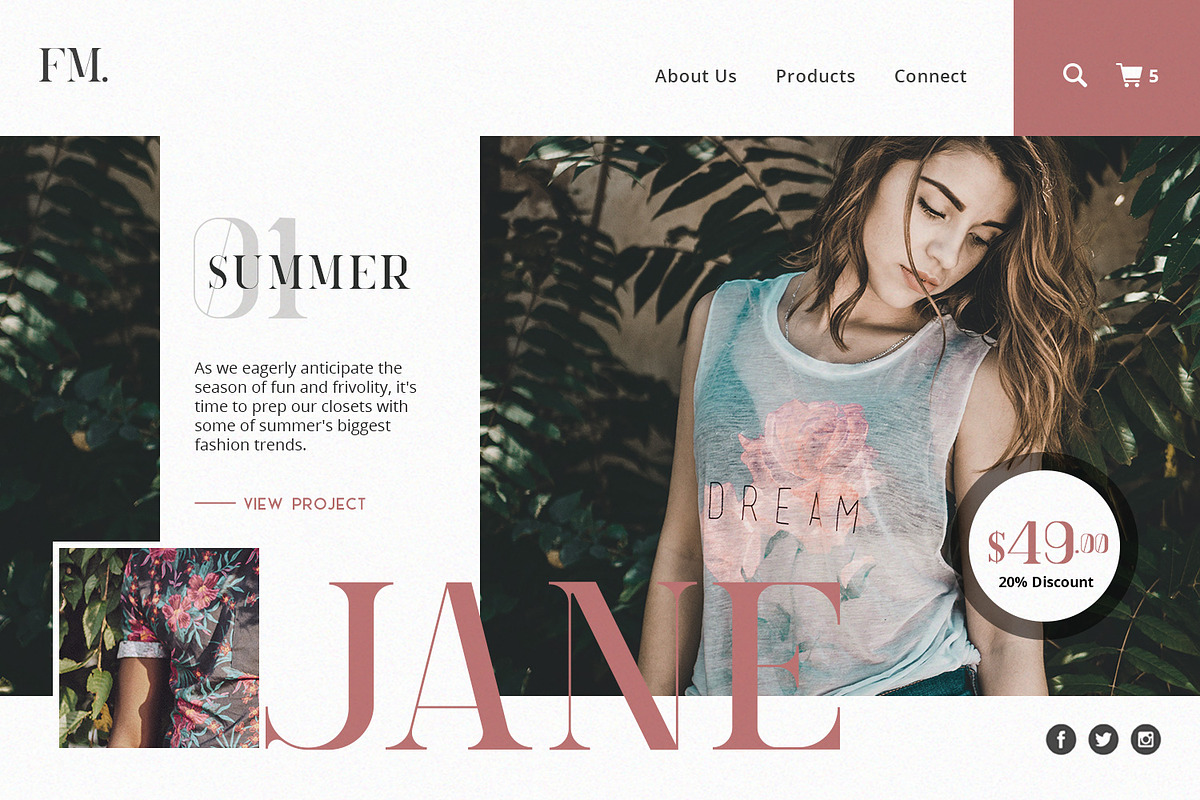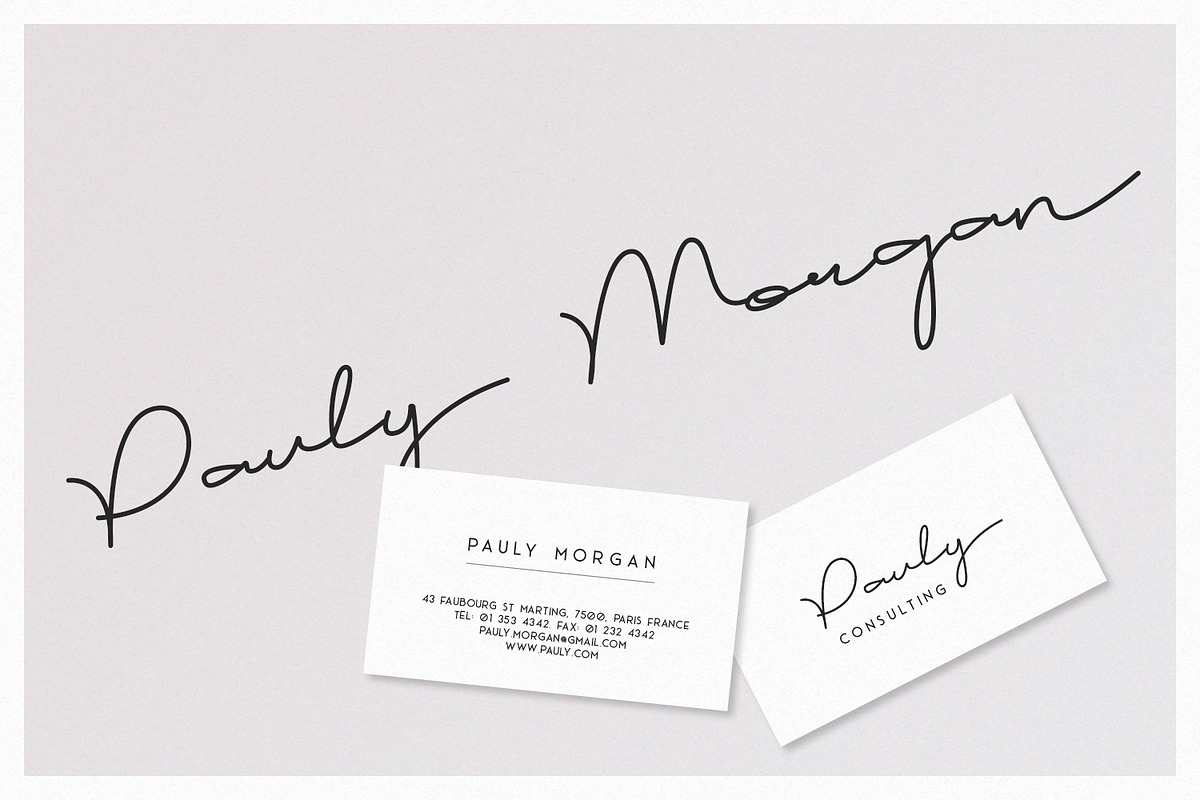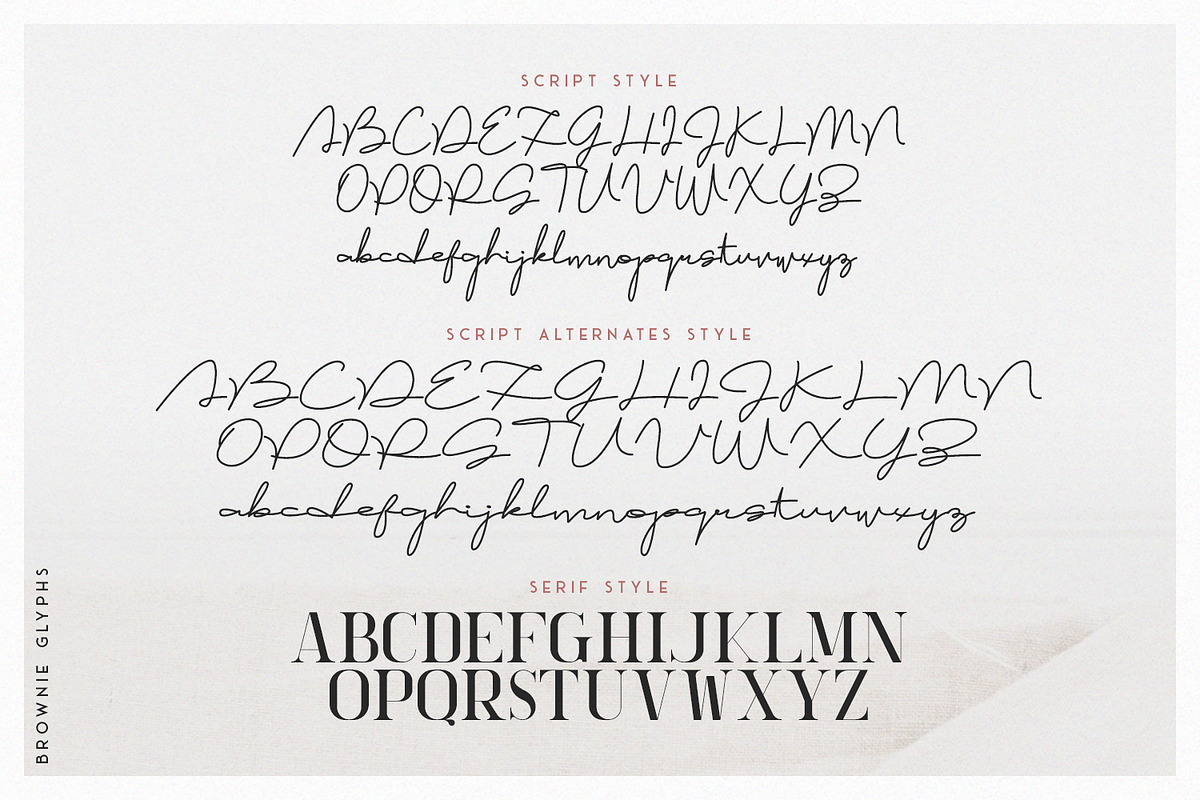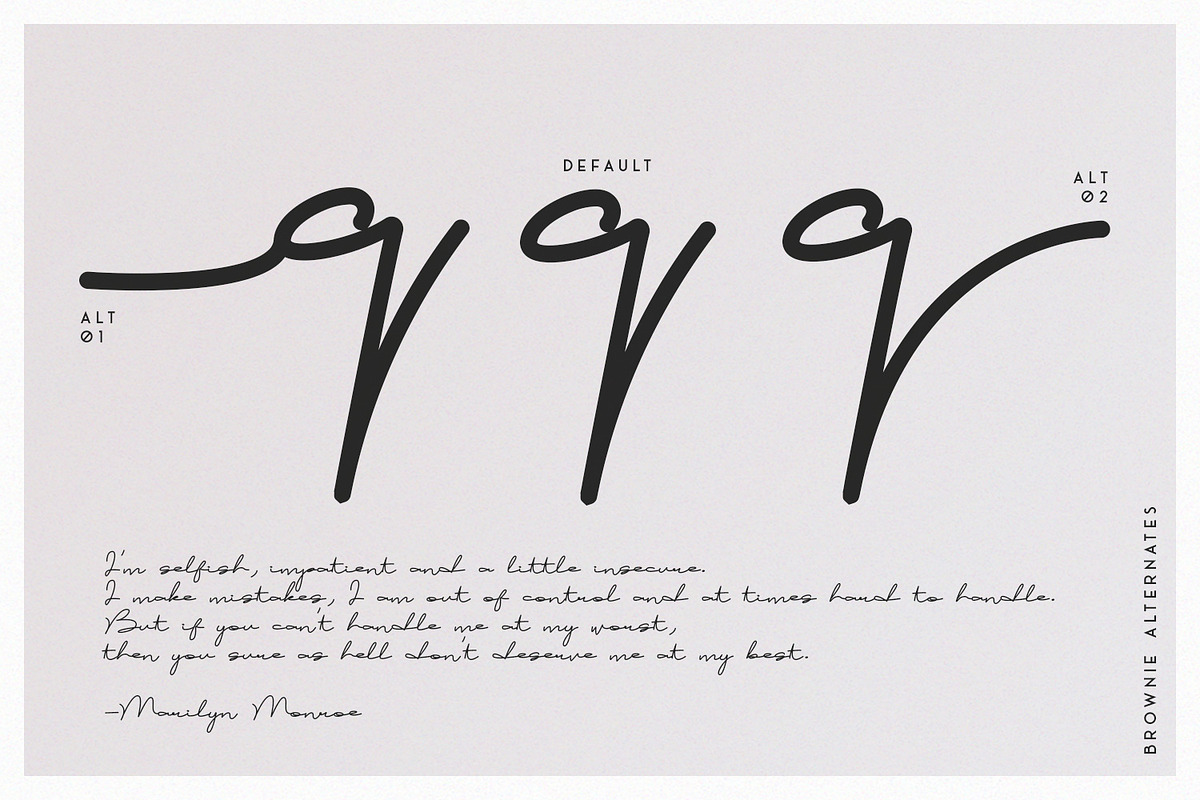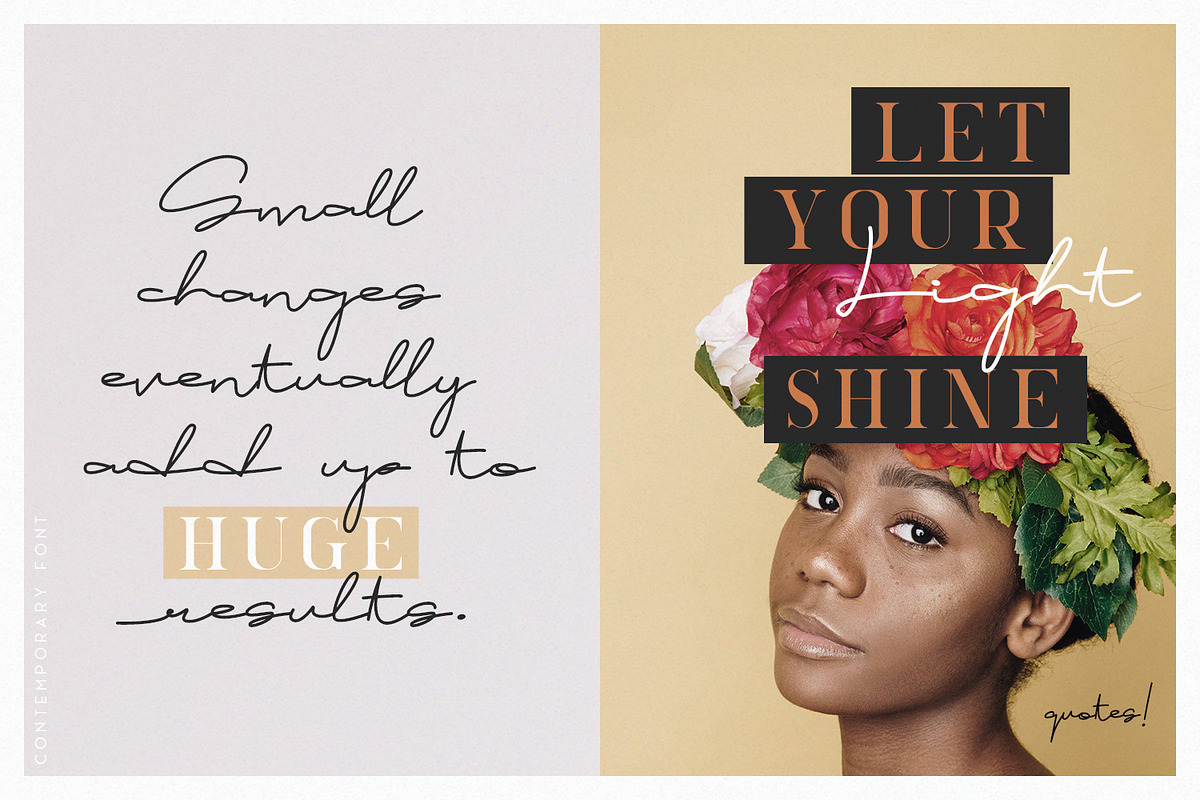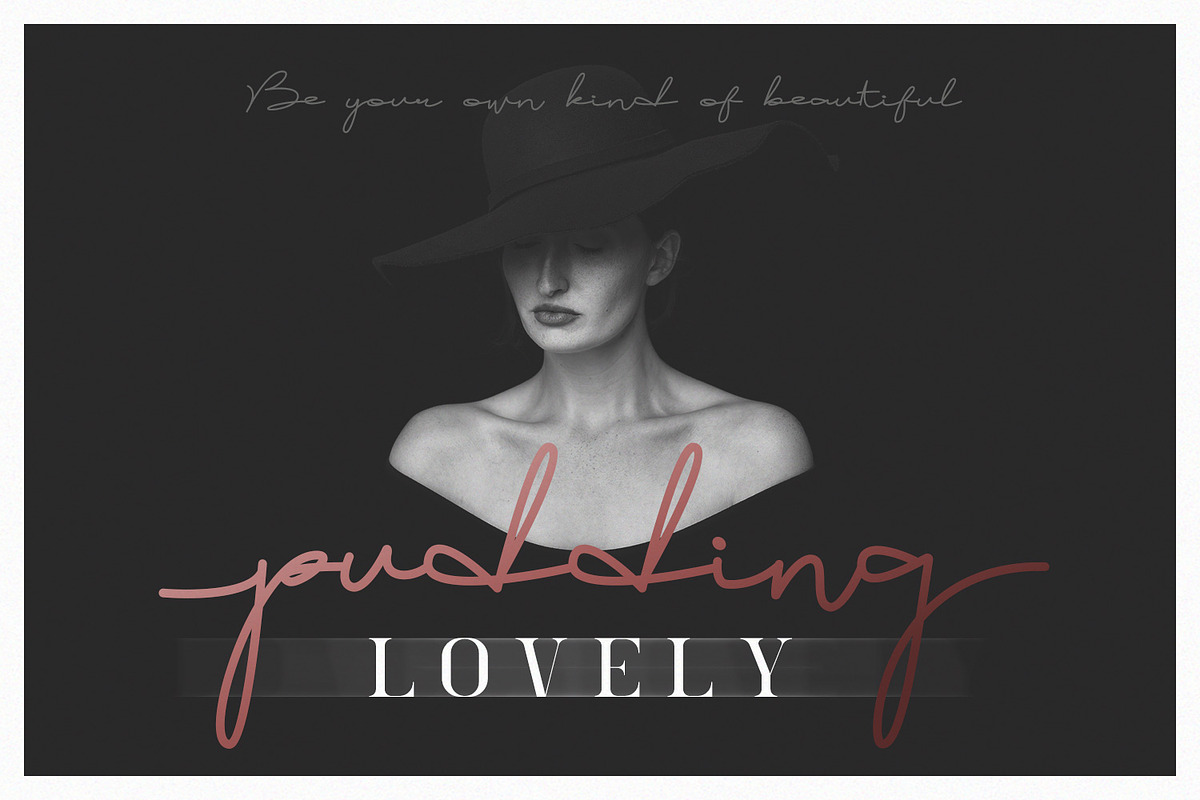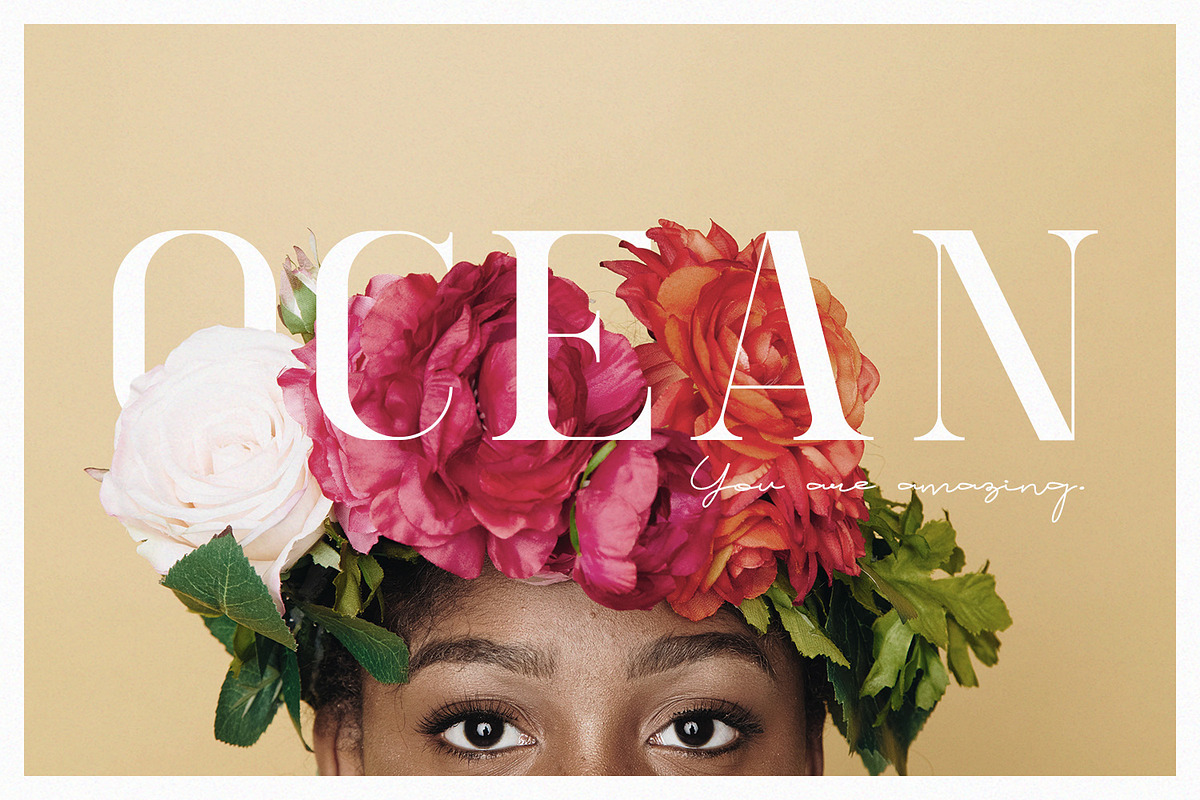
Brownie Font Duo
Brownie Font Duo is a classy, contemporary pair of script and serif fonts. Its offers beautiful typographic harmony for a diversity of design projects, headlines, branding visual identity, poster, logo, magazines and etc.
3 Fonts (Script, Alternate Script, and Serif)
Upper and lowercase characters, numerals, punctuation